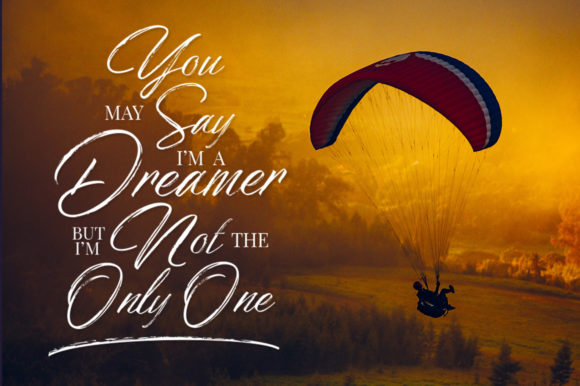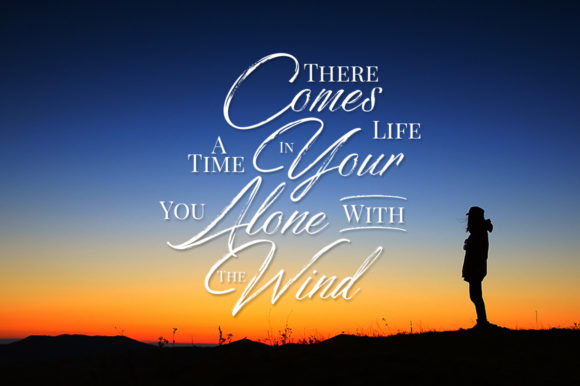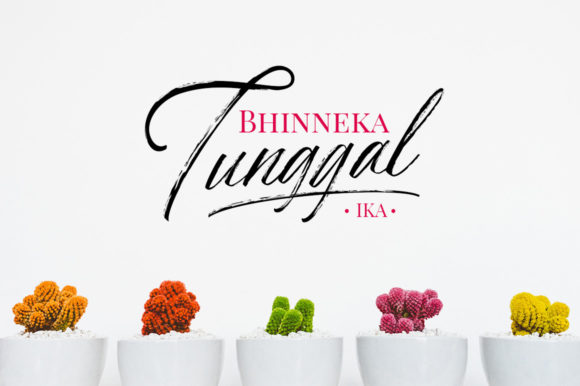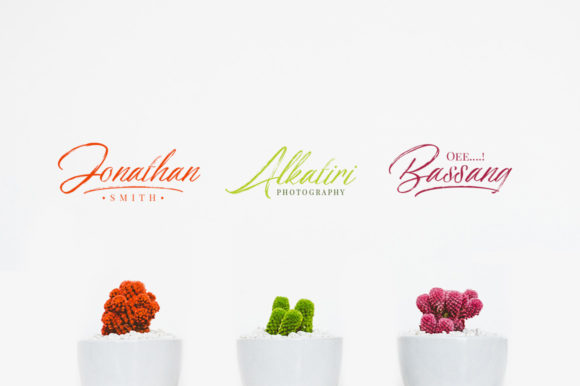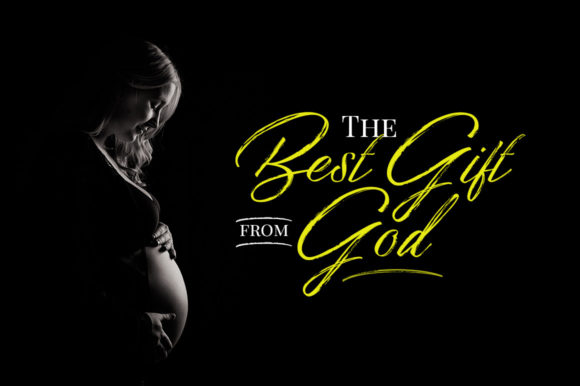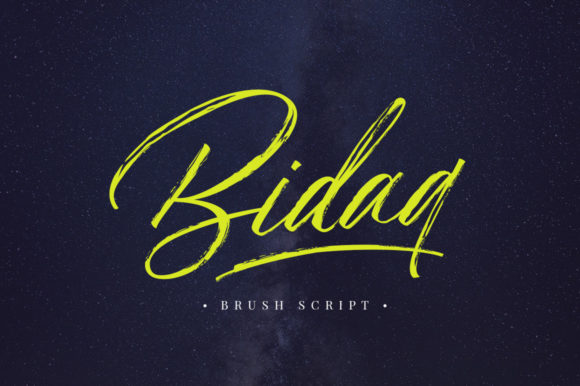
Bidaq Font: A Magical Handwritten Font for Your Designs
Bidaq is a beautiful and brushed handwritten font that has been making waves in the design community. With its modern yet whimsical style, it’s the perfect addition to any design project that requires a touch of magic. In this article, we’ll dive into the world of Bidaq font, exploring its features, uses, and benefits for designers and crafters.
The Story Behind Bidaq Font
Bidaq font is a creation of [Font Creator’s Name], a talented typographer who aimed to craft a unique and captivating handwritten font. The result is a stunning brushed script that exudes elegance and playfulness. Bidaq’s modern yet whimsical style makes it an excellent choice for designers looking to add a touch of sophistication and charm to their projects.
Key Features of Bidaq Font
- Handwritten style: Bidaq font boasts a beautiful, handwritten style that gives it a personal and organic feel.
- Brushed texture: The font features a subtle brushed texture that adds depth and visual interest to your designs.
- Modern and whimsical: Bidaq’s unique blend of modern and whimsical elements makes it perfect for a wide range of design projects.
- Magical vibe: The font’s enchanting style is sure to transport your designs to a magical world, making it ideal for projects that require a touch of fantasy.
Uses of Bidaq Font
Bidaq font is incredibly versatile and can be used in various design projects, including:
- Logos and branding: Bidaq’s unique style makes it an excellent choice for logos, business cards, and other branding materials.
- Invitations and stationery: The font’s elegant and whimsical style is perfect for wedding invitations, birthday cards, and other stationery.
- Digital design: Bidaq font can be used in digital designs, such as social media graphics, blog posts, and website headers.
- Crafting and DIY projects: The font’s playful style makes it an excellent choice for crafting and DIY projects, such as scrapbooking, journaling, and handmade cards.
Benefits of Using Bidaq Font
So, why should you choose Bidaq font for your design projects? Here are just a few benefits:
- Unique style: Bidaq font offers a distinctive style that will set your designs apart from the crowd.
- Elegant and playful: The font’s elegant and playful style makes it perfect for a wide range of design projects.
- Easy to read: Despite its whimsical style, Bidaq font is easy to read, making it suitable for body text and headlines.
- Customizable: Bidaq font can be customized to fit your design needs, allowing you to adjust the font size, color, and style to suit your project.
Tips for Using Bidaq Font
To get the most out of Bidaq font, here are a few tips:
- Pair with contrasting fonts: Pair Bidaq font with contrasting fonts to create visual interest and hierarchy in your designs.
- Experiment with colors: Bidaq font looks great in a variety of colors, so don’t be afraid to experiment and find the perfect hue for your design.
- Use it sparingly: While Bidaq font is beautiful, it’s best used sparingly to avoid overwhelming your design.
Bidaq font is a stunning handwritten font that can add a touch of magic to your designs. With its modern yet whimsical style, it’s perfect for a wide range of design projects, from logos and branding to invitations and digital design. Whether you’re a designer, crafter, or DIY enthusiast, Bidaq font is sure to inspire your creativity and take your designs to the next level.